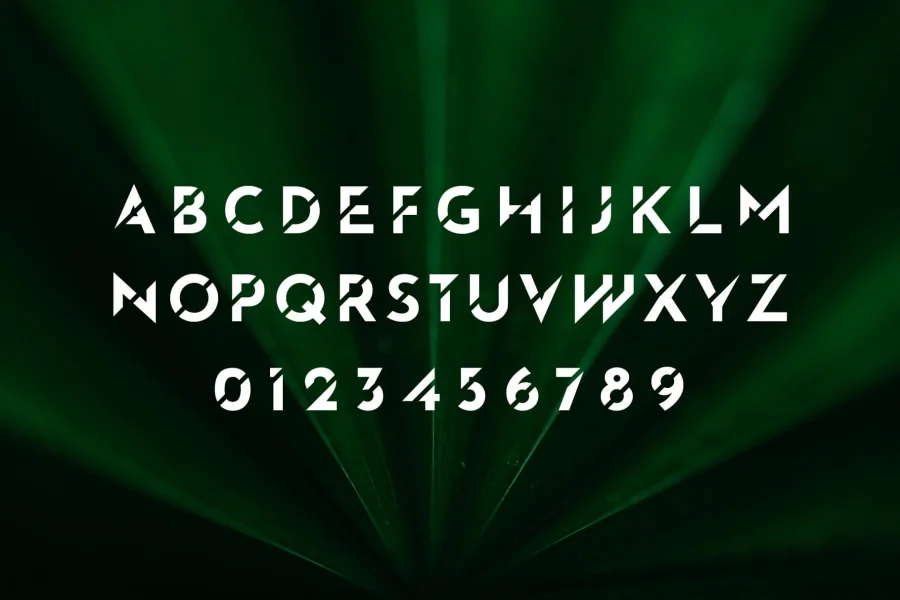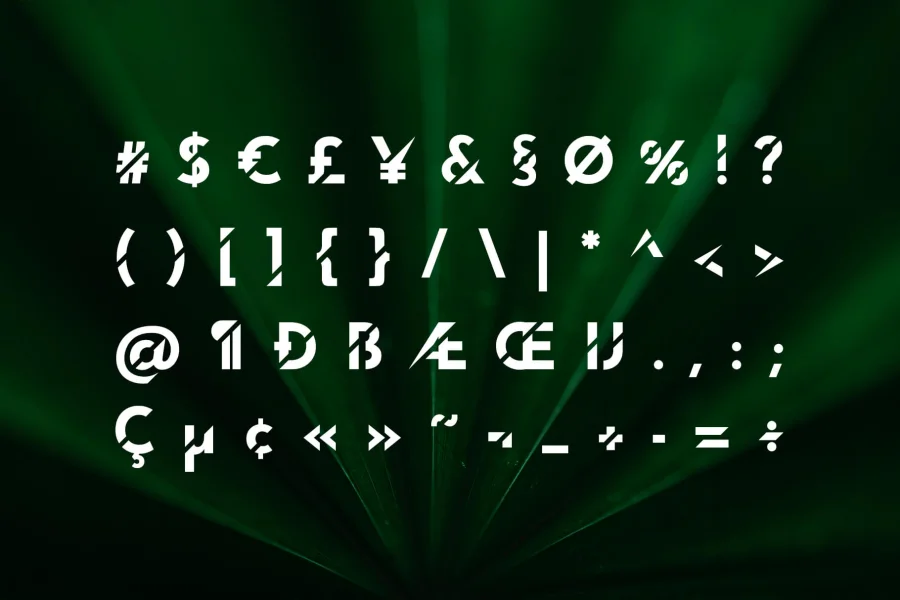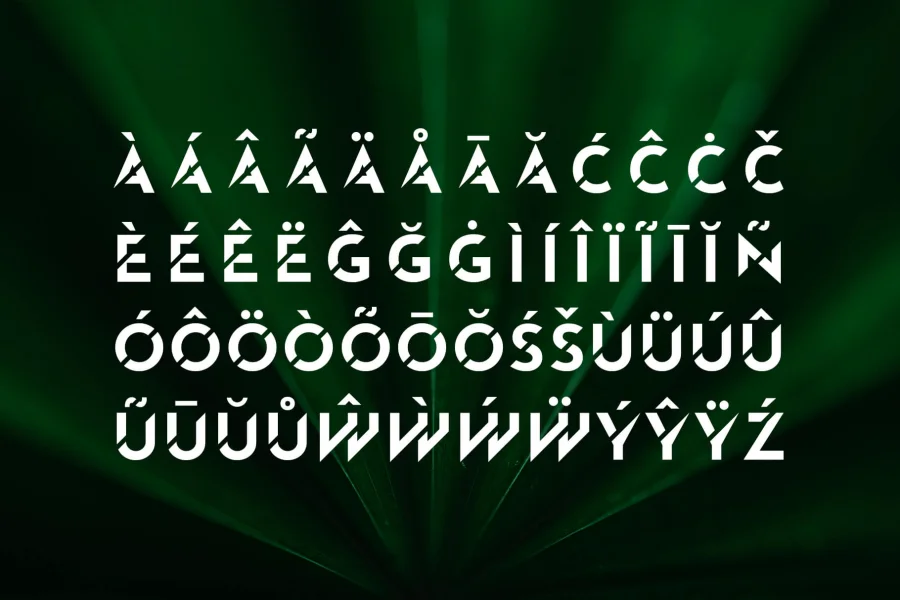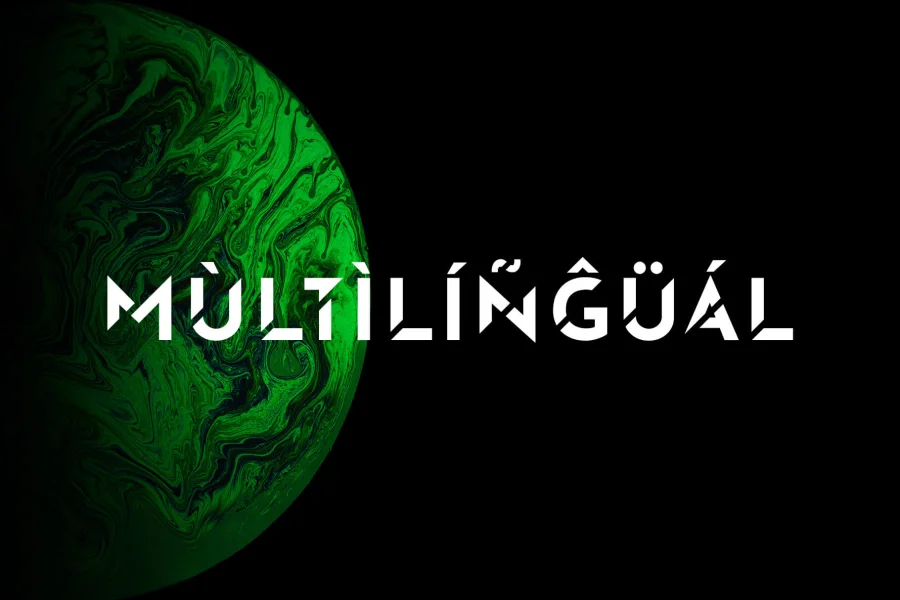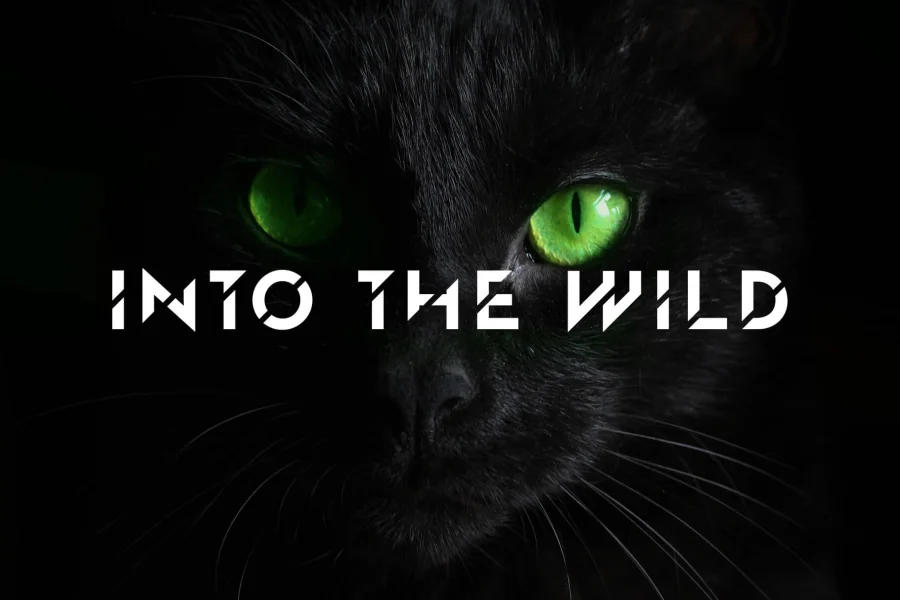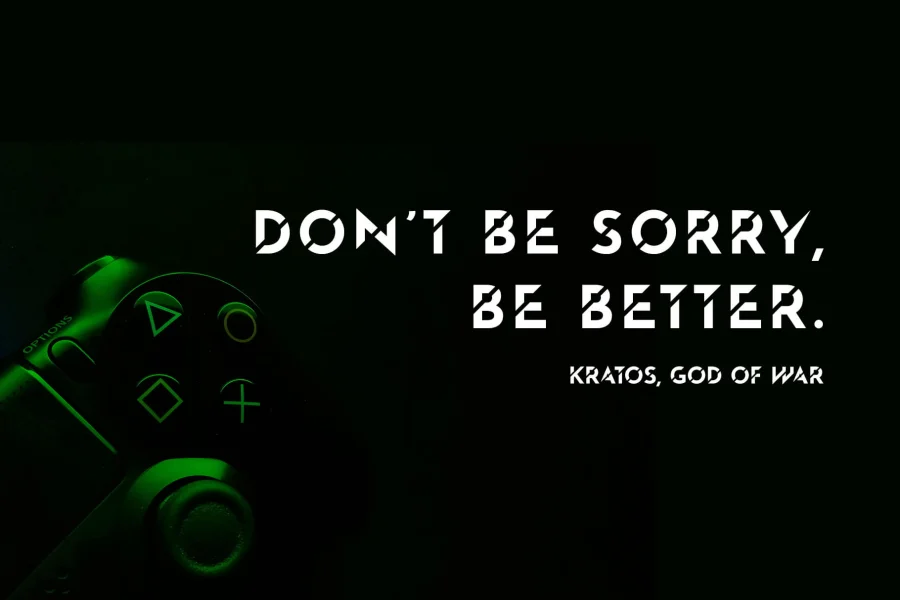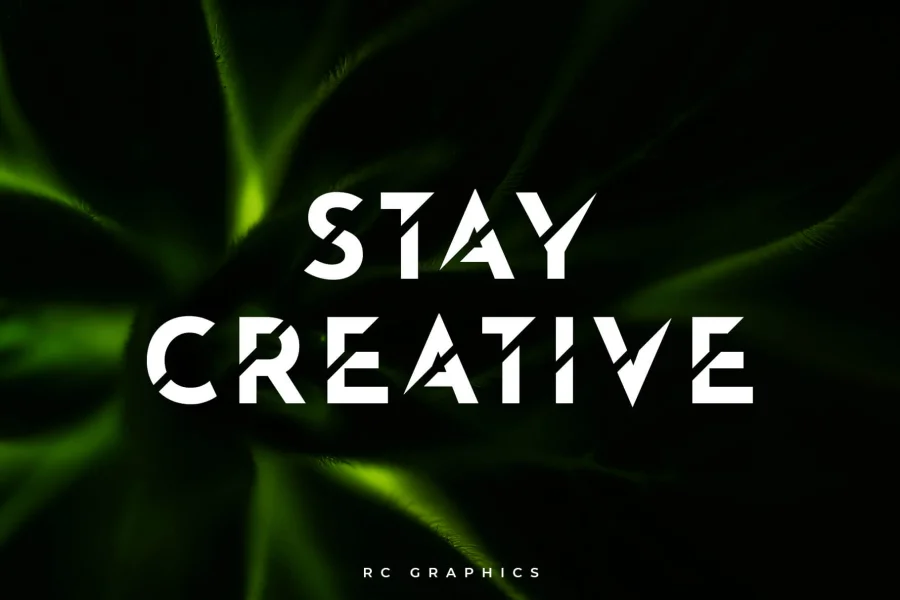
Introducing Vanem - Display Font
Vanem is a wild sport display font with diagonal cuts. This font Perfectly suites for variety display purposes, including logotypes, badges and labels, headlines and banners, posters, prints and much more.